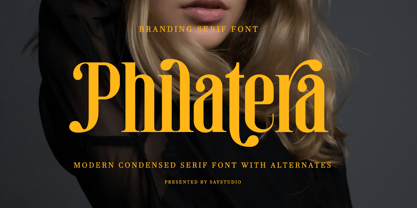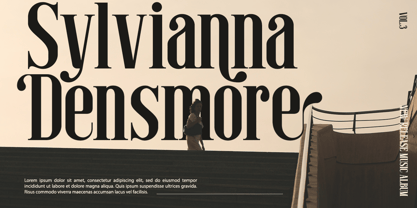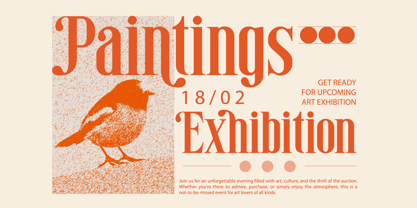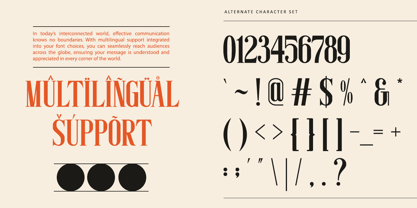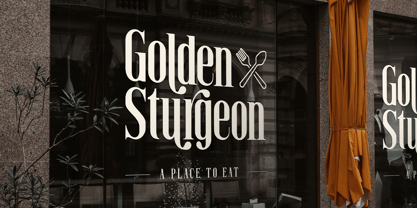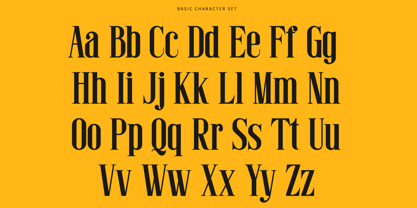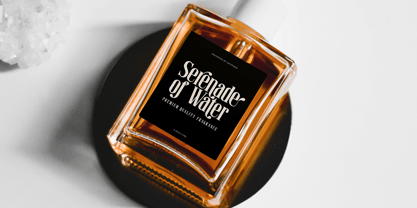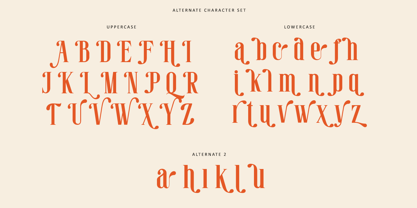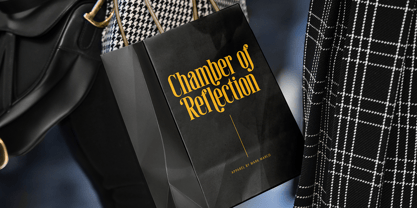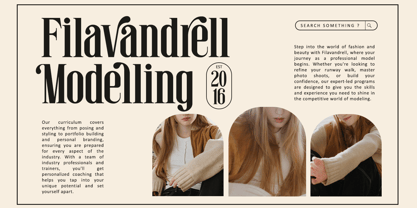
Philatera
The Philatera Font Family was designed by Mussyayin and published by Say Studio. Philatera contains 2 styles and family package options. More about this family
Philatera – a revival of a condensed serif font that will give you incredible flexibility, but I honestly can’t get over the tight caps. This font is just too good with character alternates that add a unique twist to any project.
Philatera is a beautiful, nostalgic uppercase and lowercase typeface that works best as primary display text (think logos, headlines, beautiful quotes, calls to action, etc.
- Alternates Character
- Multilingual Support